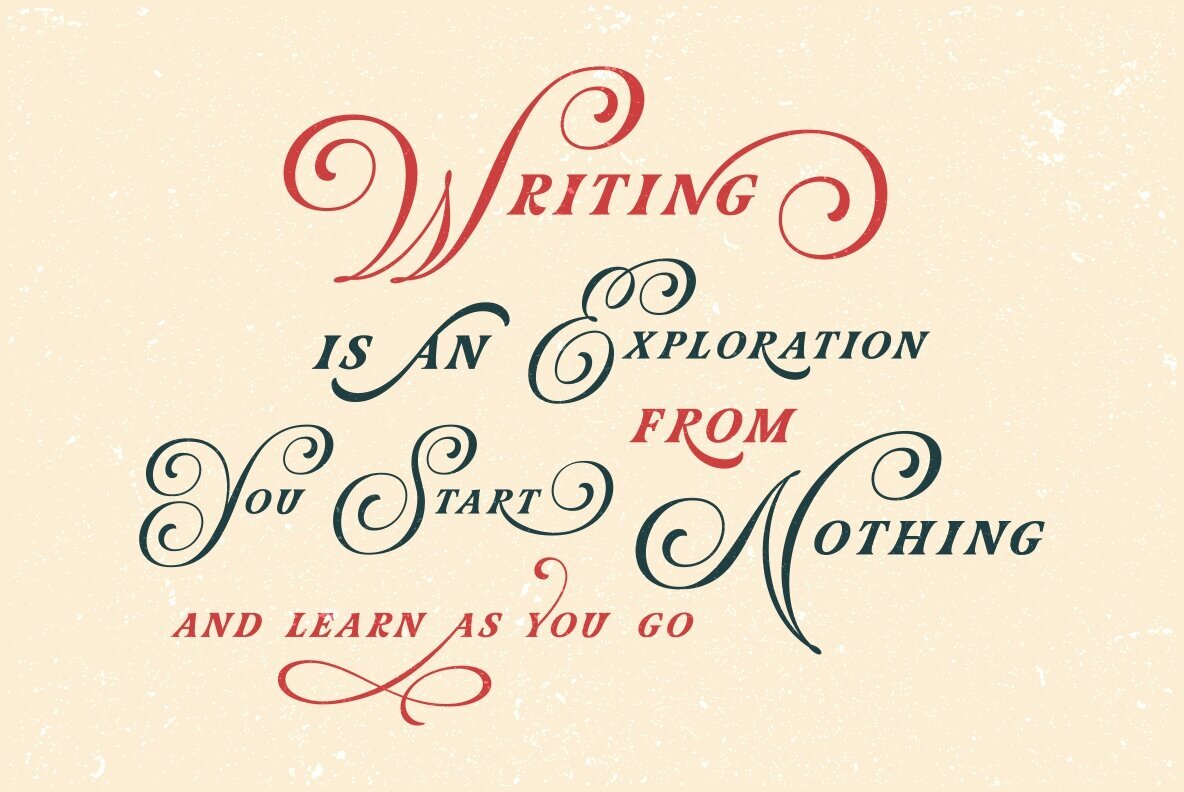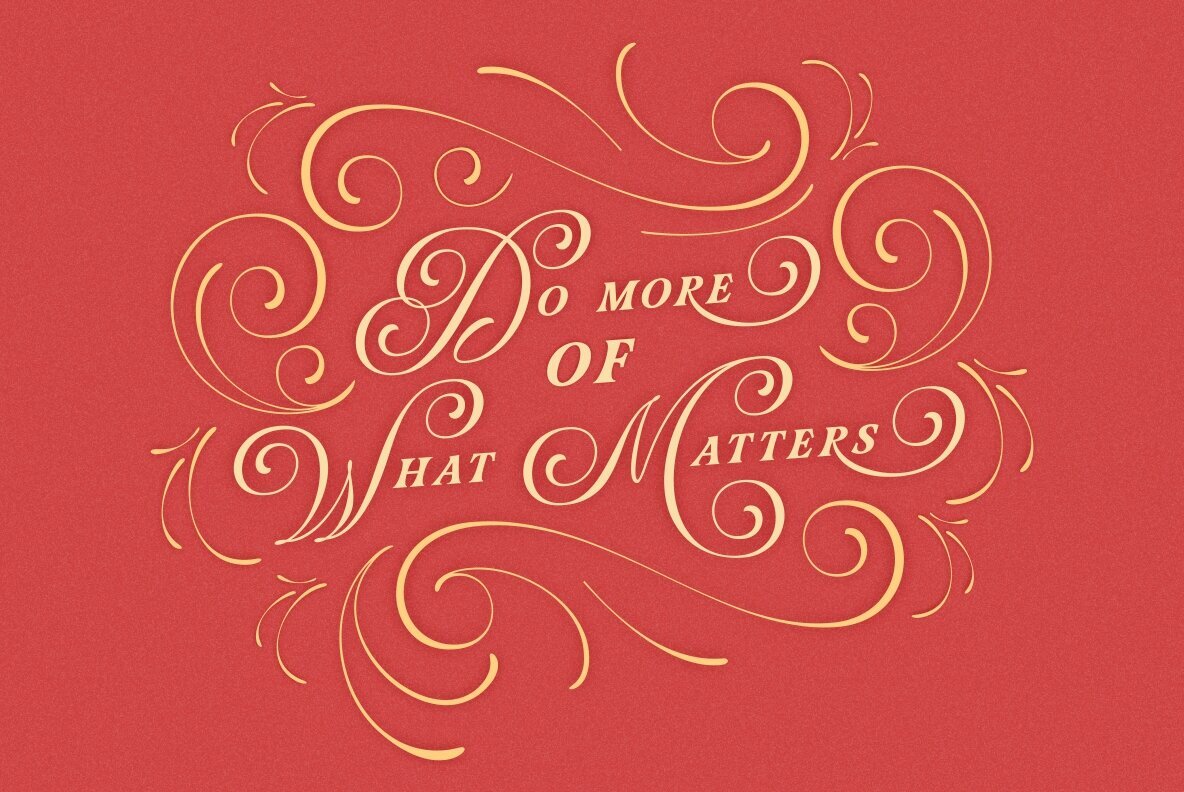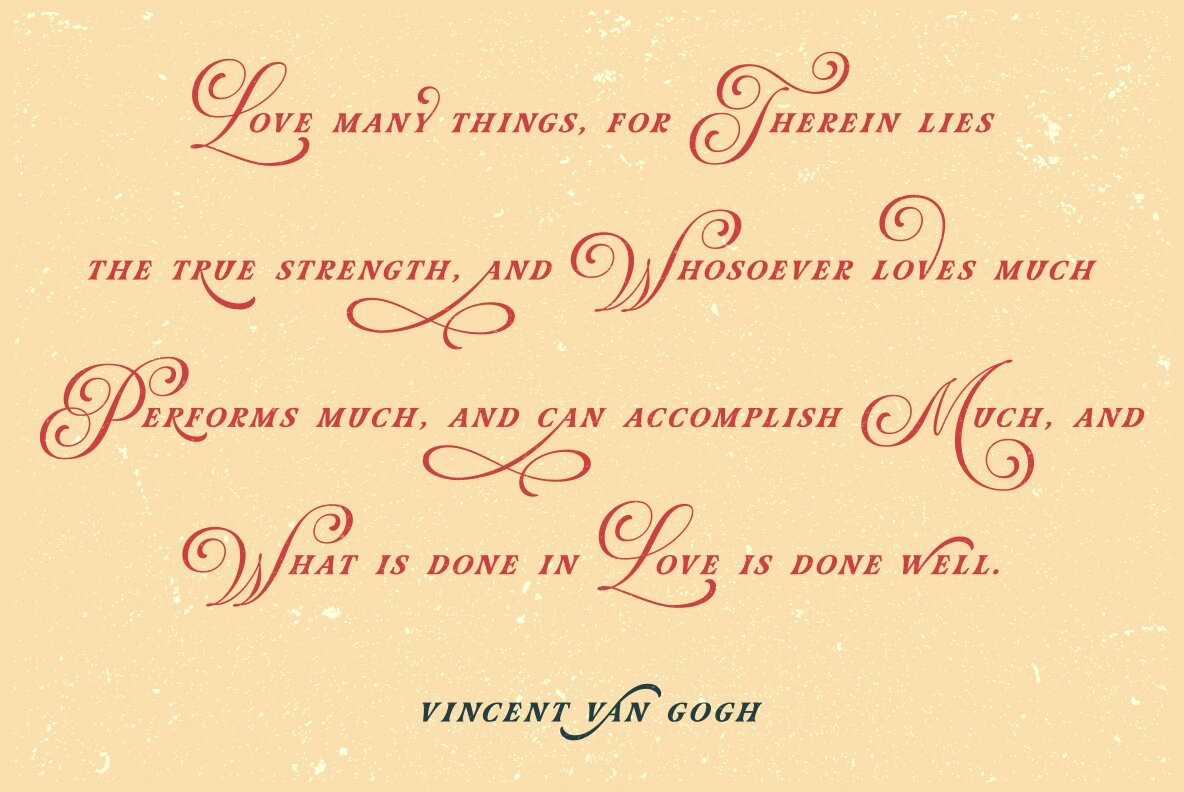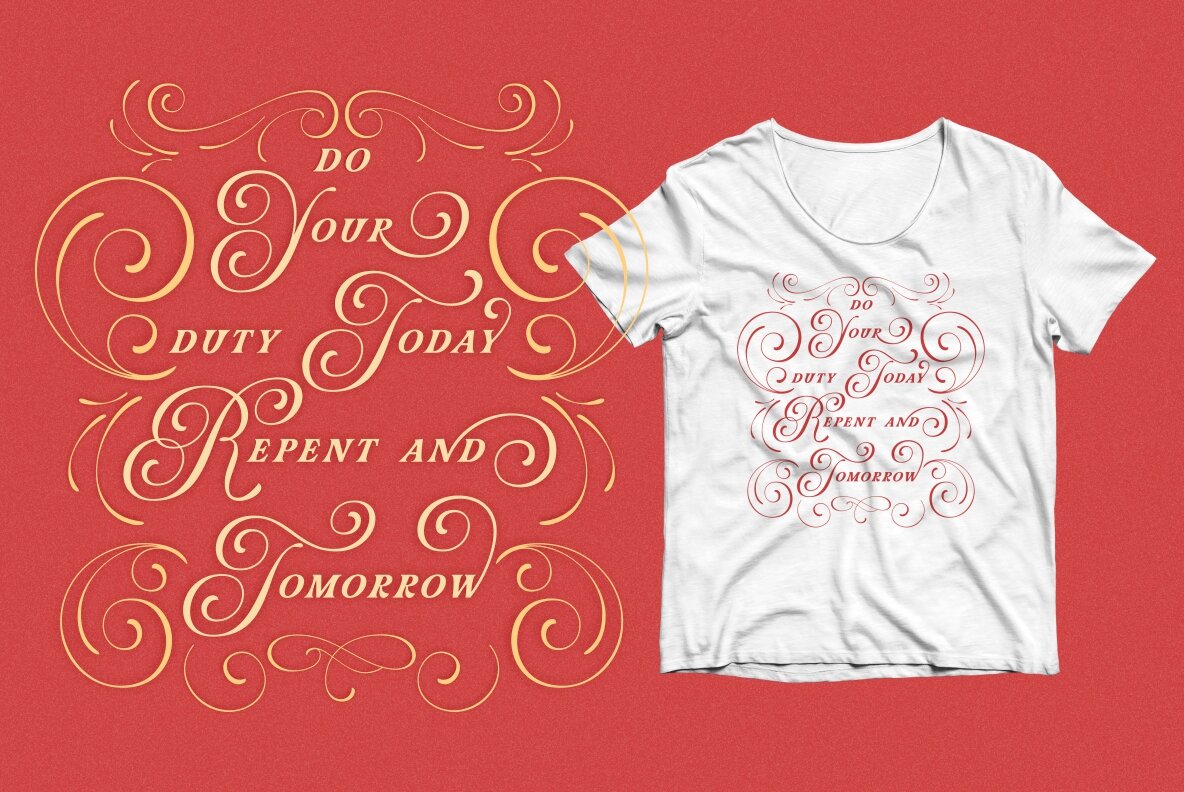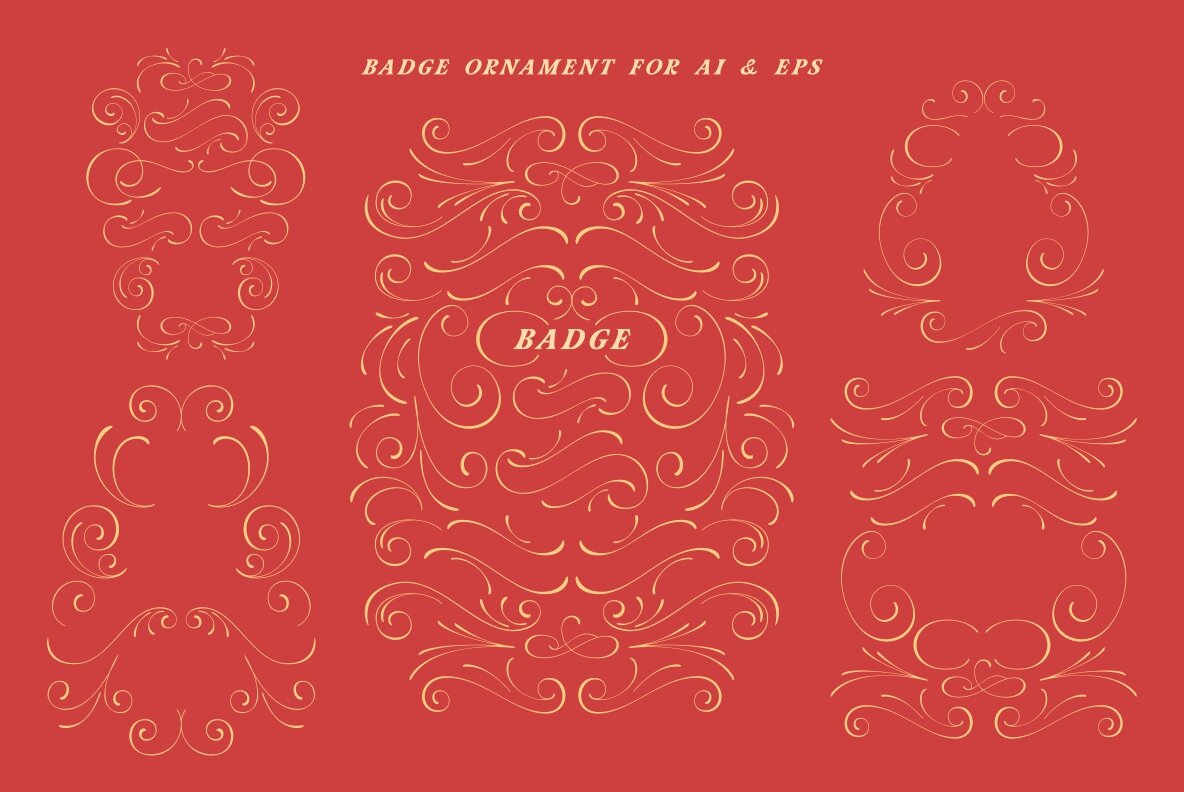
expand_font Astria Font Discover Astria: the lavish and fashionable font inspired by classic taste and fashion, perfect for books, magazines, packaging, and more—desi... SKU T17600 Astria,Astria,Fancy,Fashionable,Lavish,Redy Studio,Display,Playful,Handwriting,Handwritten,Script,Cursive,Beautiful,Canva,Best,Aesthetic,Premium,Crafting,Script,Calligraphy,Fun,Signature,Signature Logo,Handwritten Logo,Hand Drawn Logo,Logo,Photography Logo,Posters,Blog Headers Explore Exceptional Fonts for Digital and Traditional Media Fontpath offers a large variety of fonts for every designer, all at affordable prices and in multiple formats. Browse our best in class fonts today for all your creative needs, you can find everything you need right here at our site! Fonts,sans,sans serif,retro,script,decorative,title,FontPath 20140312040223 Fontpath offers 200,000+ of the most professional fonts found online, start downloading today! Real-Time Font Discovery at Fontpath